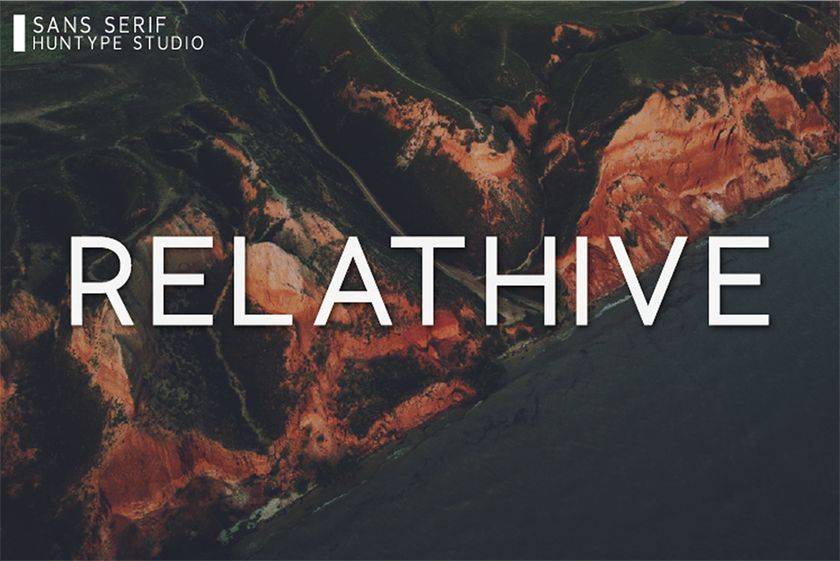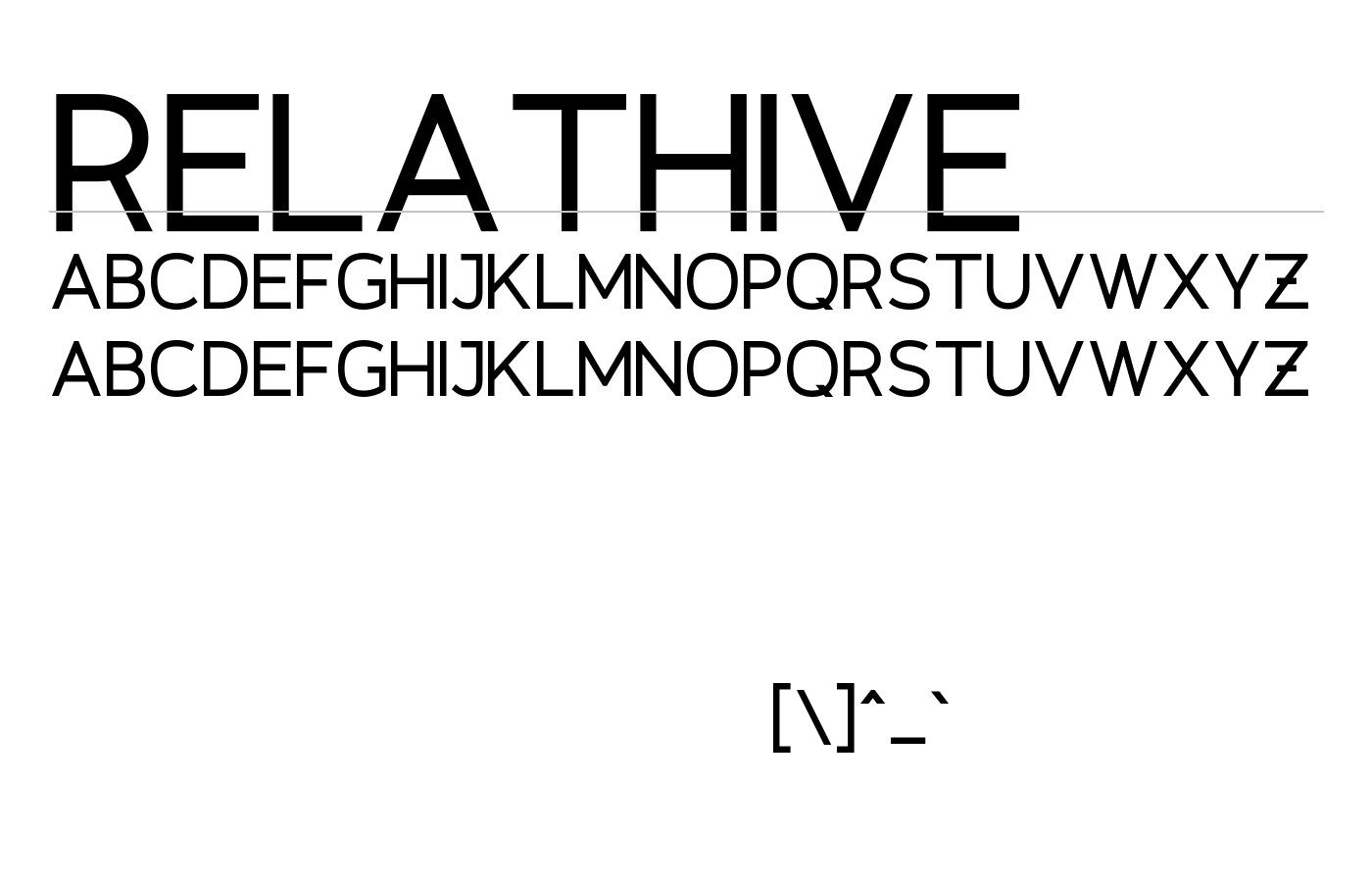
Relathive is a sleek, modern sans serif font characterized by its clean lines, geometric shapes, and a slightly condensed structure that gives it a contemporary and professional look. Its uniform stroke weight and tall x-height create excellent readability, making it ideal for both headlines and body text in digital and print media. This versatile typeface conveys clarity and sophistication, perfect for branding, editorial design, and corporate communications.
Relathive Font
About Relathive Font